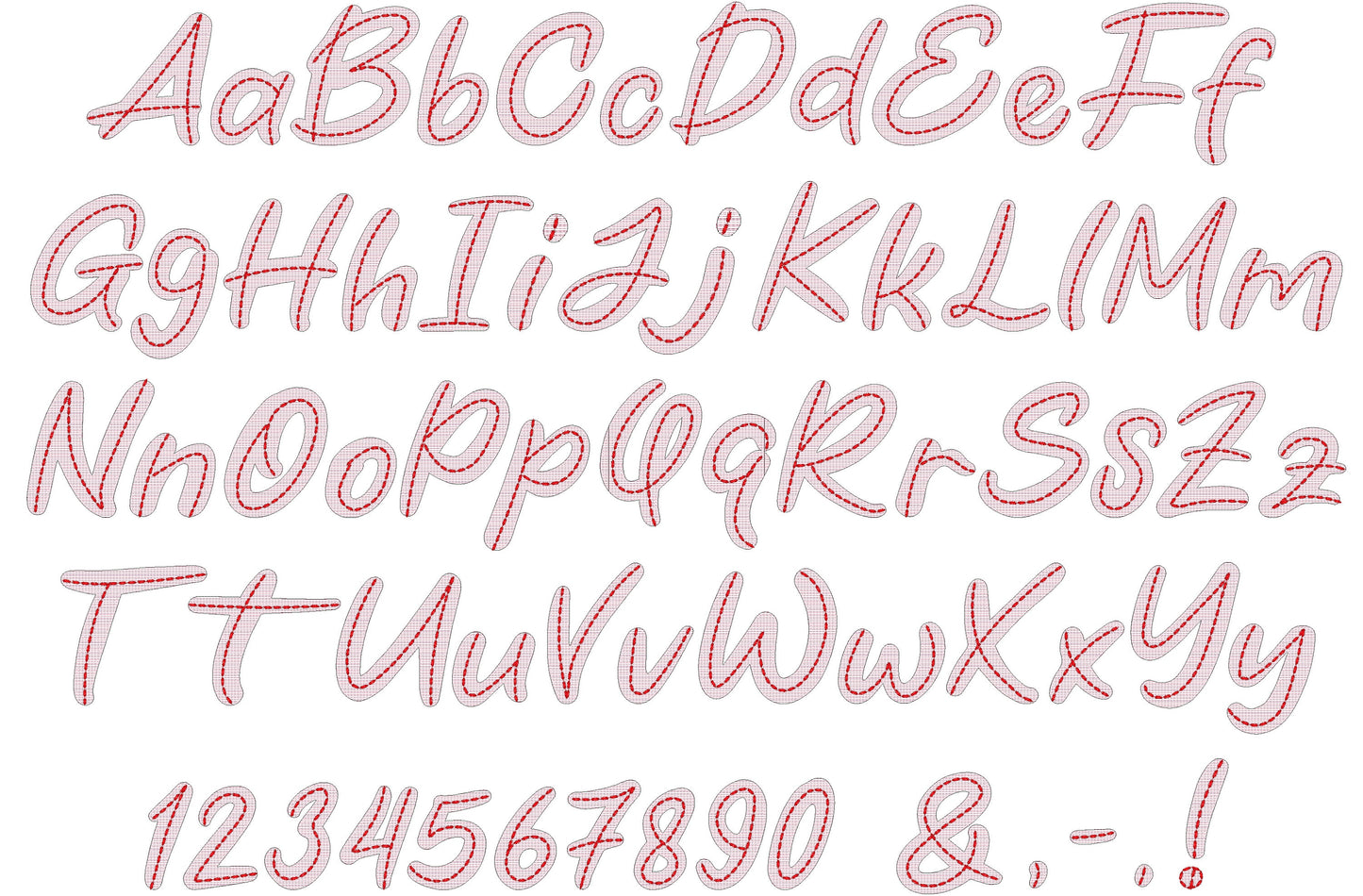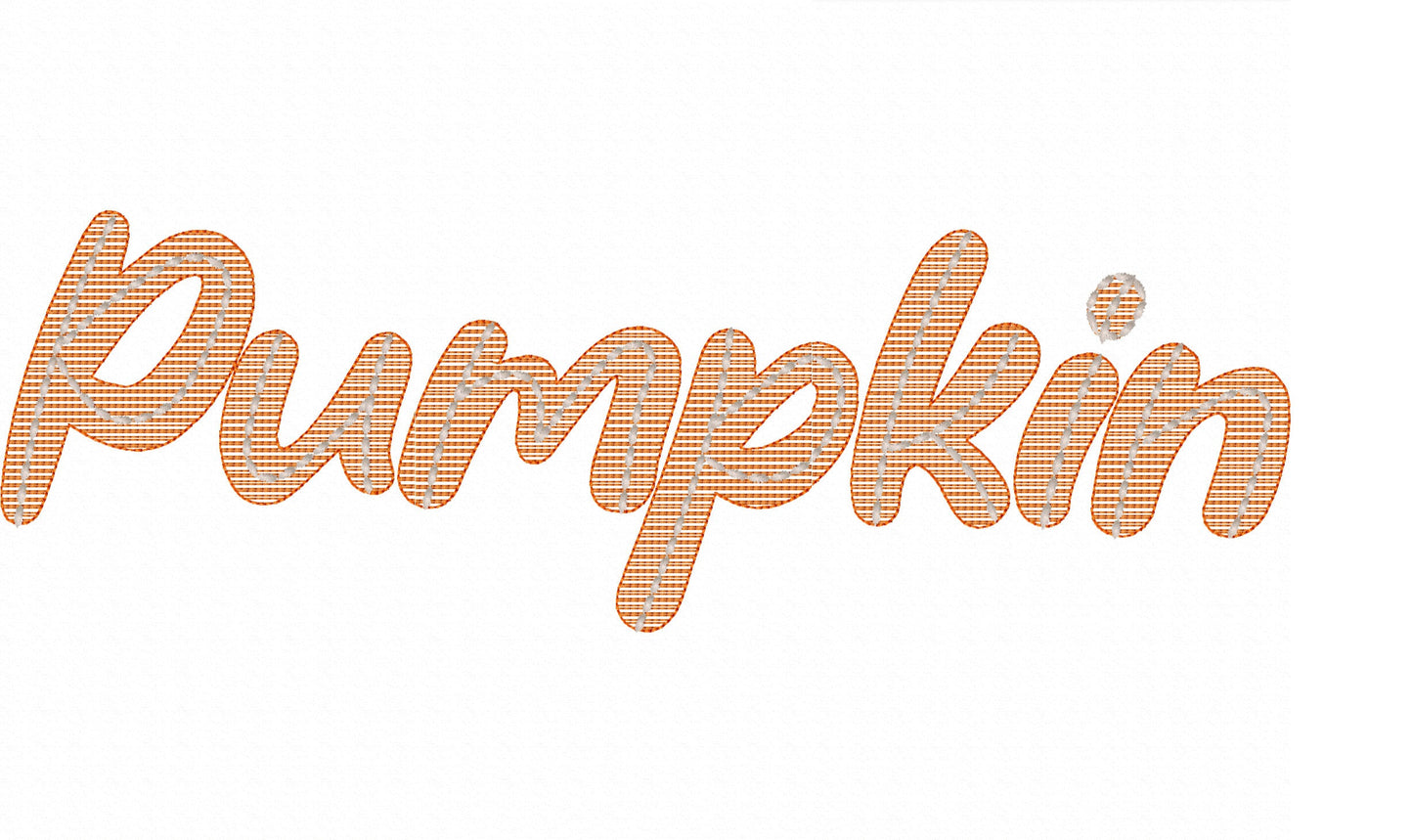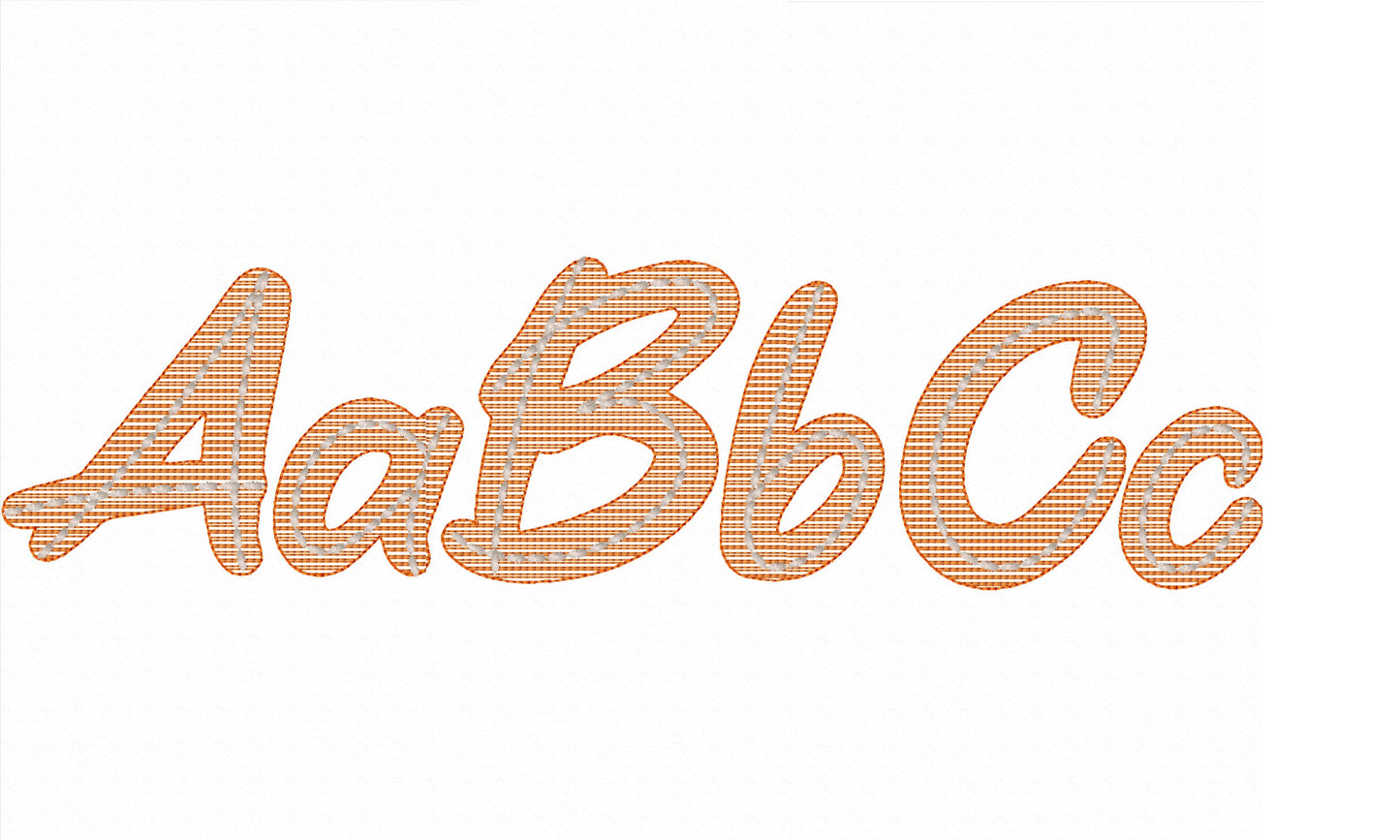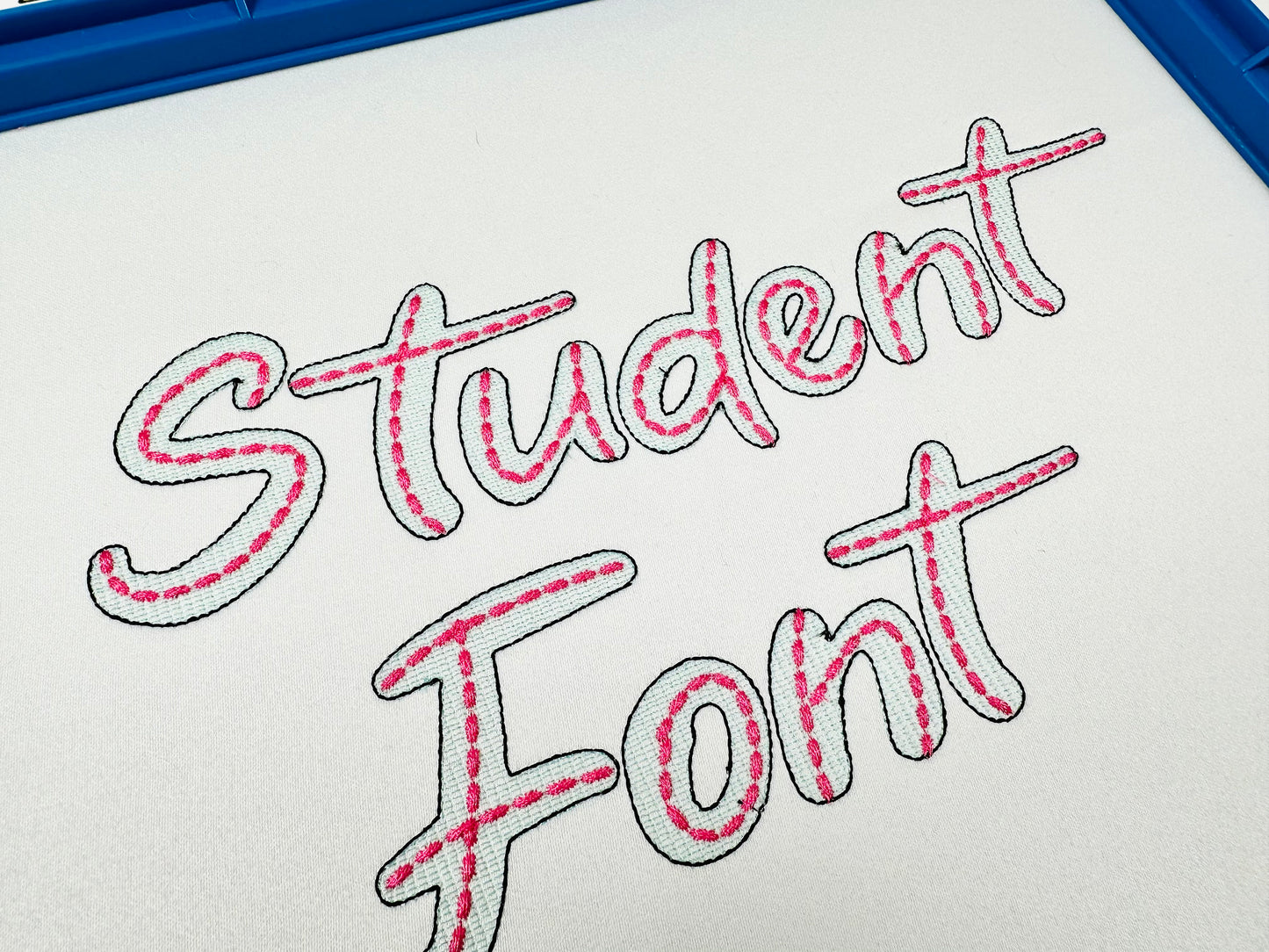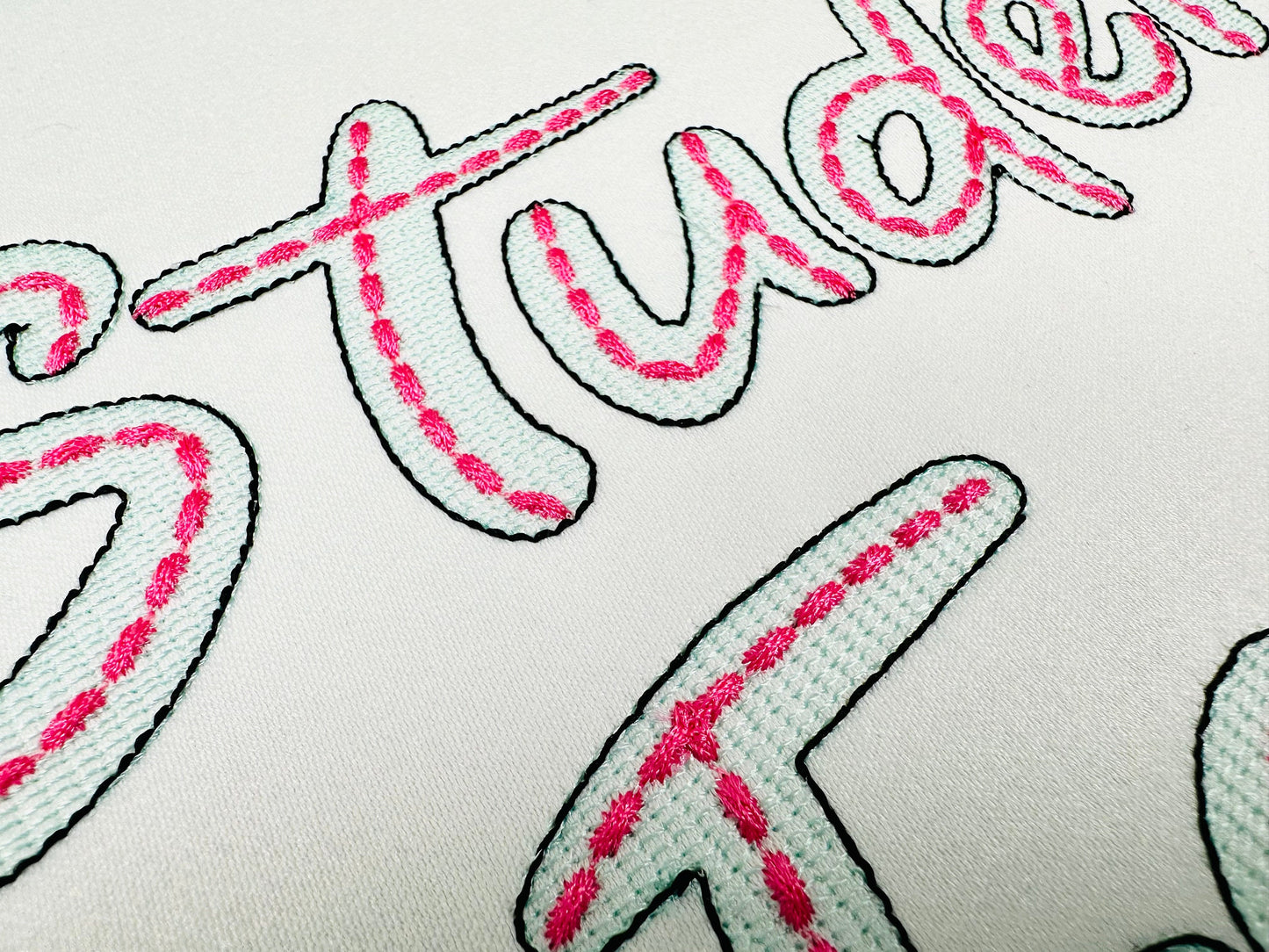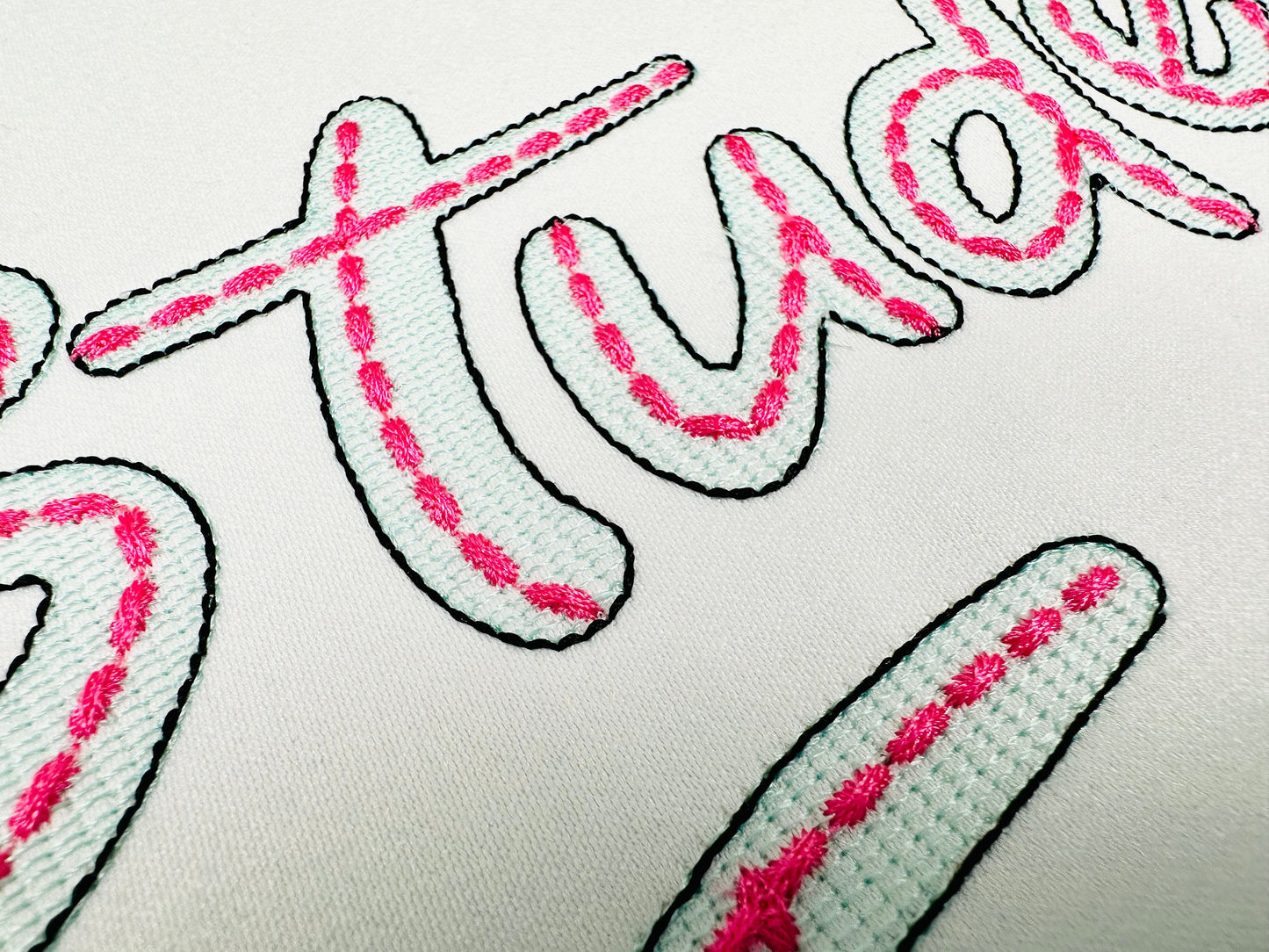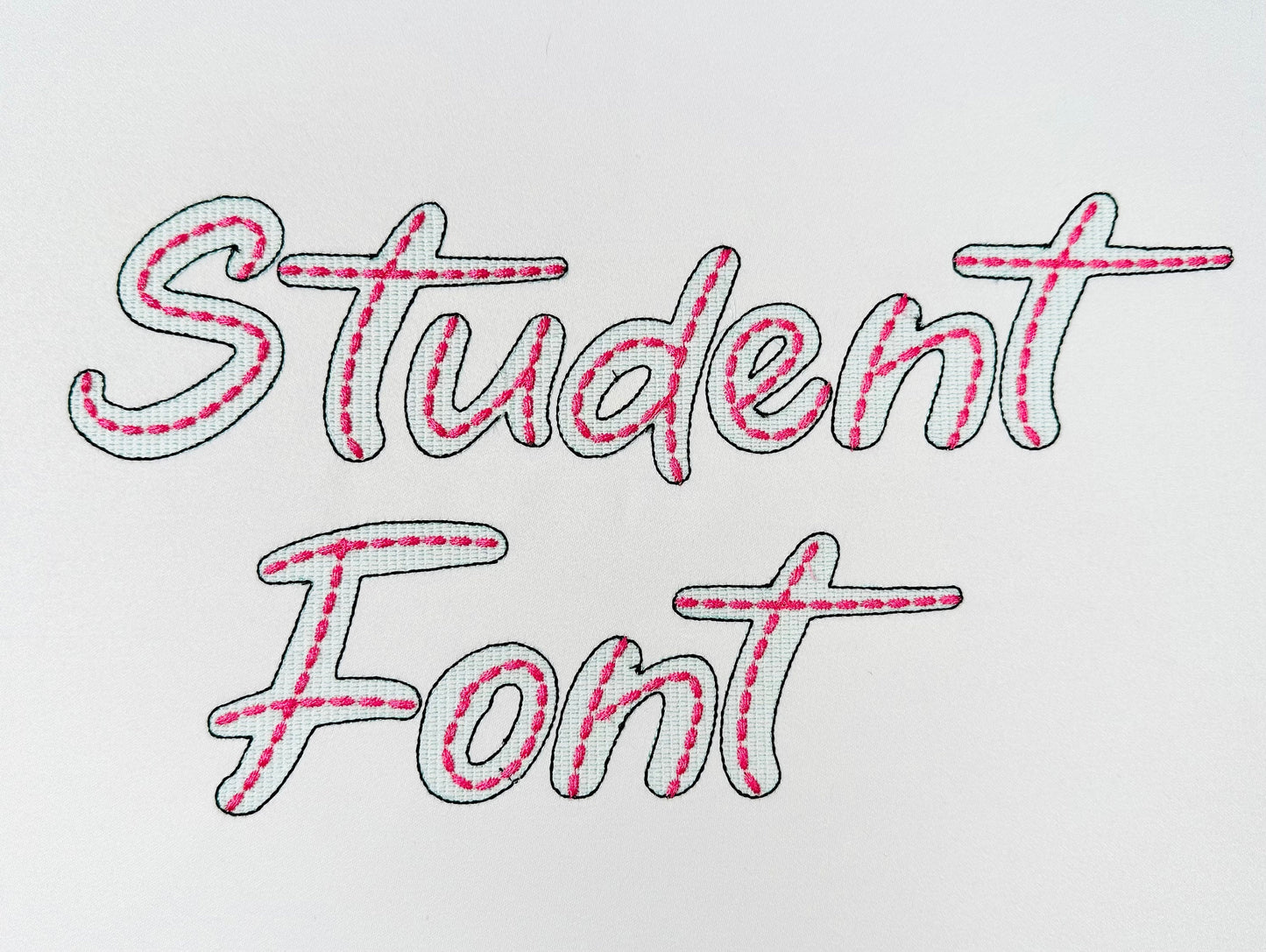
Or click to open the linkA quick light-stitch sketch font with a bean stitch outline on top. Stitches fast and looks great for names and words on shirts and totes.
Light, low-density fill with a bean stitch outline, so the fabric shows through; it looks best on white or light fabric. Seven sizes: 1.4, 1.7, 2.2, 2.8, 3.4, 4 and 5 inches.